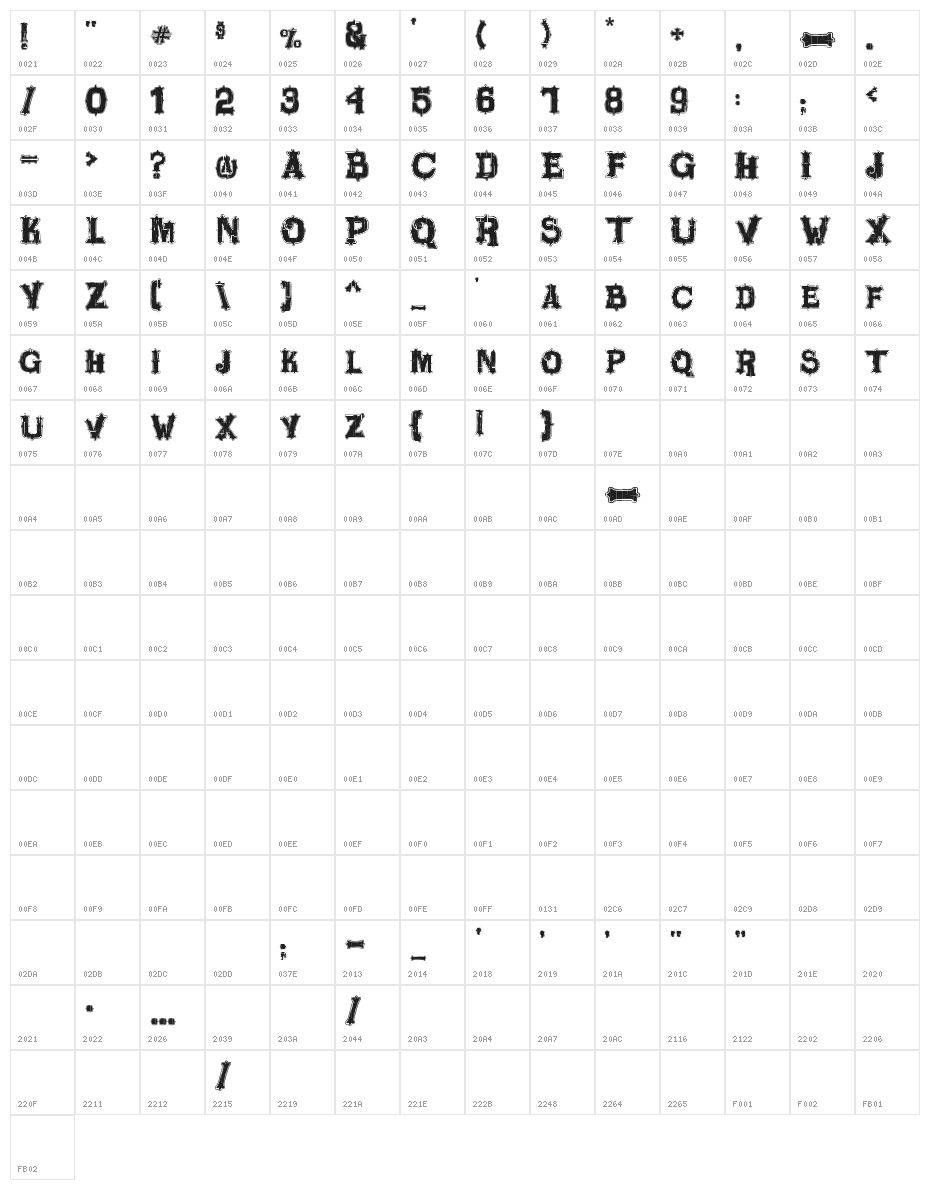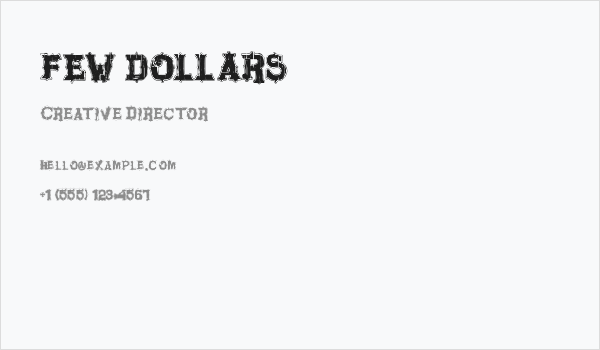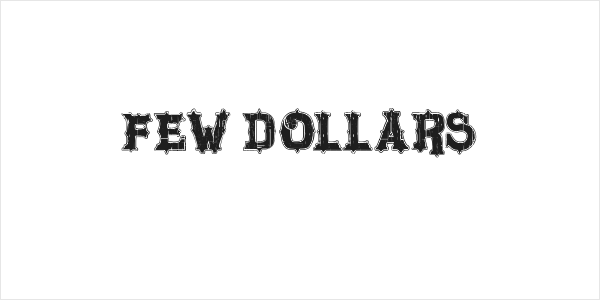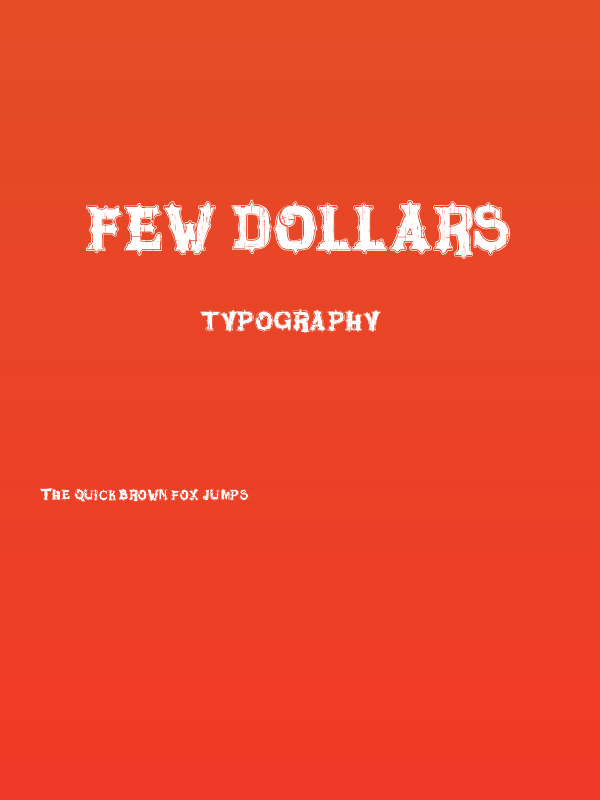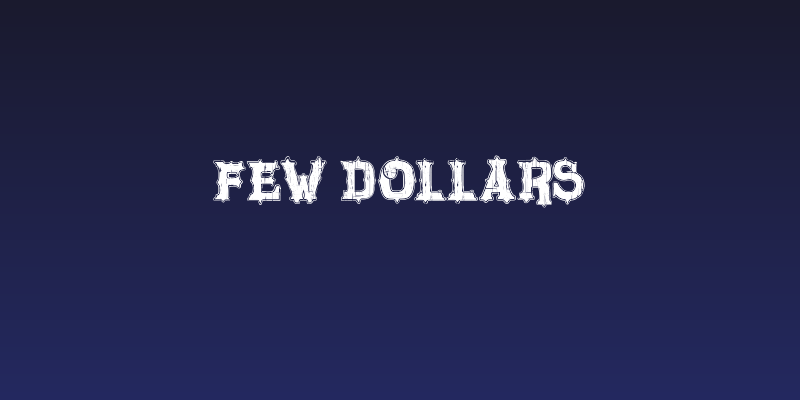
FEW DOLLARS Font
FEW DOLLARS Description
This font features a bold, decorative style with a distinct Western or vintage flair. The characters are heavily stylized with thick strokes and intricate detailing, giving them a rugged, textured appearance. The uppercase letters are prominent and commanding, while the numerals and special characters maintain the same bold, elaborate design. The font's unique aesthetic is reminiscent of old-fashioned signage or posters, making it ideal for projects that require a touch of nostalgia or a strong visual impact.
Overall StyleVintage
Proposed ProjectsIdeal for vintage-themed posters, signage, branding for Western or rustic products, and decorative headlines.